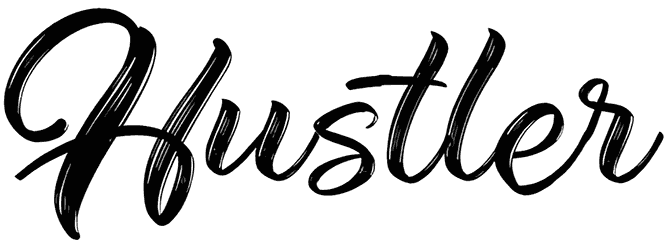
Rugani Payne Font
Whether you’re making a poster, a card, an announcement, or anything else with broad appeal, you’ll be happy with the results if you use Rugani Payne as a script brush font.
Designed by: StringLabs